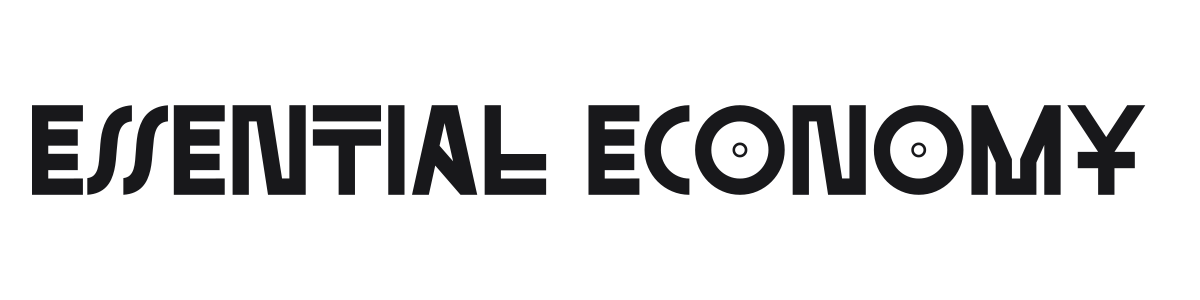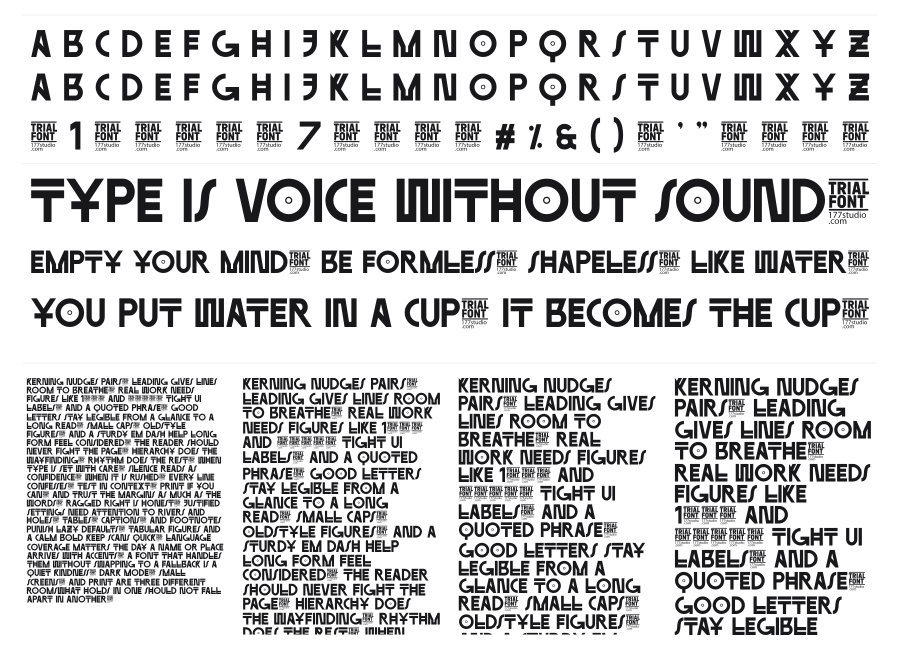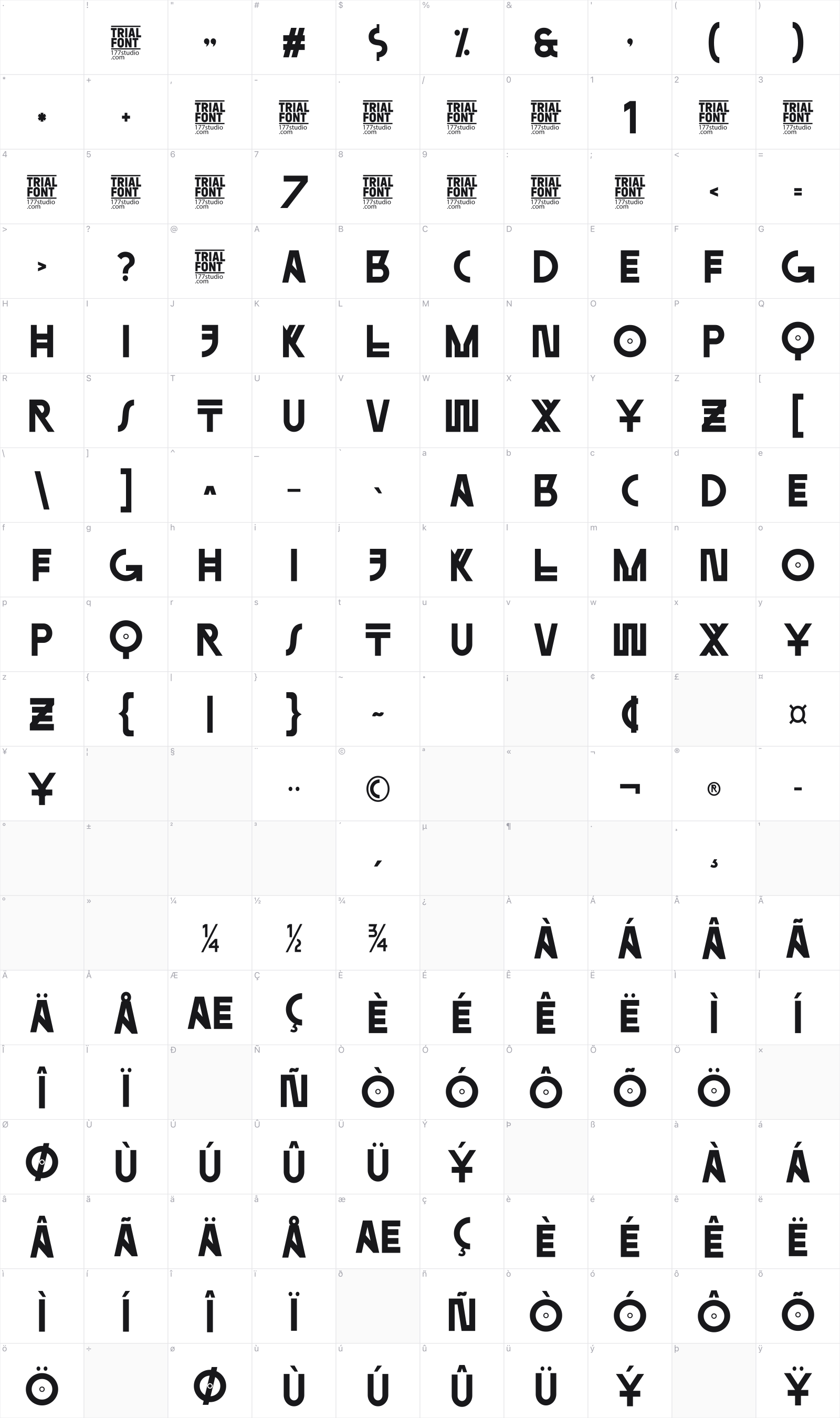
Essential Economy
Essential Economy is a bold futuristic sans-serif built from geometric cuts, circular voids, and angular interruptions that give each character a machine-assembled quality. The heavy monoweight strokes and condensed proportions make it read as a single powerful block at headline sizes. It draws on constructivist geometry and sci-fi visual language.